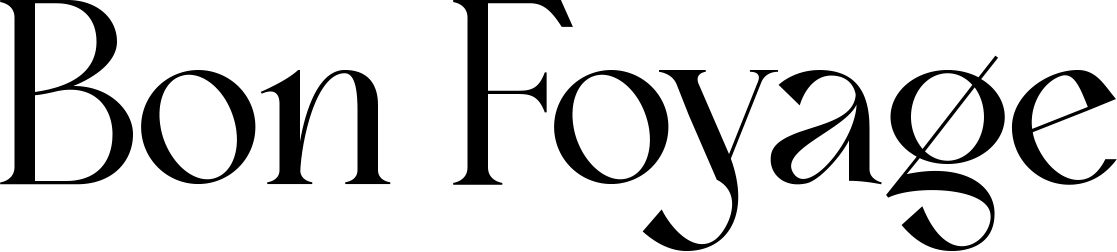
Bon Foyage Font
Bon Foyage carries slim bold smart characters that will enable you to develop a very fashionable text. This specific serif font delivers a reliable but also vintage feel. You will have a professional typography, that will surprise the audience with its luxurious display.
Bon Foyage is a brilliant choice to download as it offers mixed-case alphabets, but to verify there aren’t any numbers or symbols for this modern fashion font. It can be used for places like books, magazines, fashion, and more.